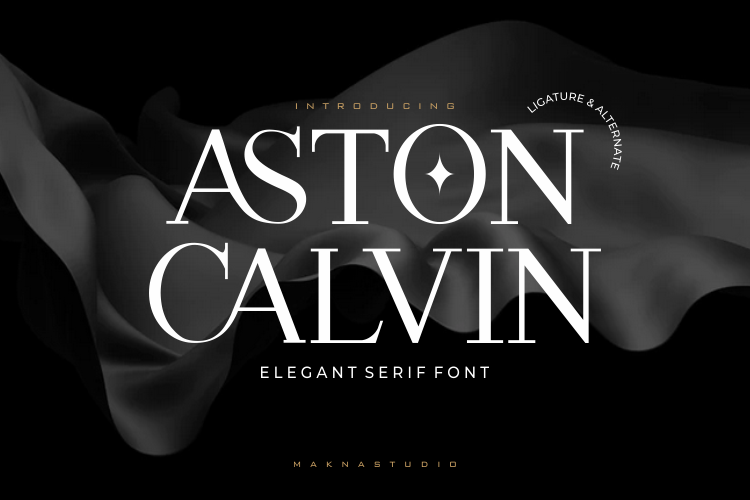
Preview and download Aston Calvin Font. Created by MaknaStudio in Basic Serif styles with Free for personal use license.
Font name: | Aston Calvin |
Author: | MaknaStudio |
This is a modern ligature serif font with elegant style. It�s an easy way & perfect choice to make your Design artwork standout, is perfectly suitable for creating modern style,like a logo branding, Fashion product, Fashion branding and more. Aston Calvin also came with alternate characters and ligature to make everything more Fancy. =========================================== Note of the author By installing or using this font, you are agreeing to the Product Usage Agreement: � This font is already FULL VERSION � BUY COMMERCIAL LICENSE https://maknastudio.com/product/aston-calvin/ Thank you. |